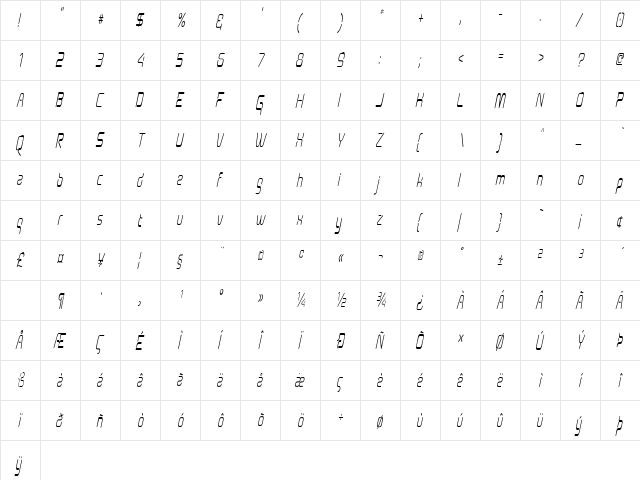
Aunchanted Condense Oblique Regular Font Preview
Design Context for Aunchanted Condense Oblique Typeface
Aunchanted Condense Oblique offers clean, dependable letterforms without strong stylistic allegiance, making it a practical choice for designers who need flexibility. Its italic angle brings a sense of urgency and motion to the letterforms. The condensed width makes it efficient for tight spaces without sacrificing legibility.
Pro Tip: Try Aunchanted Condense Oblique for annotation and caption copy alongside an upright companion — the contrast in angle creates a dynamic but ordered typographic system.